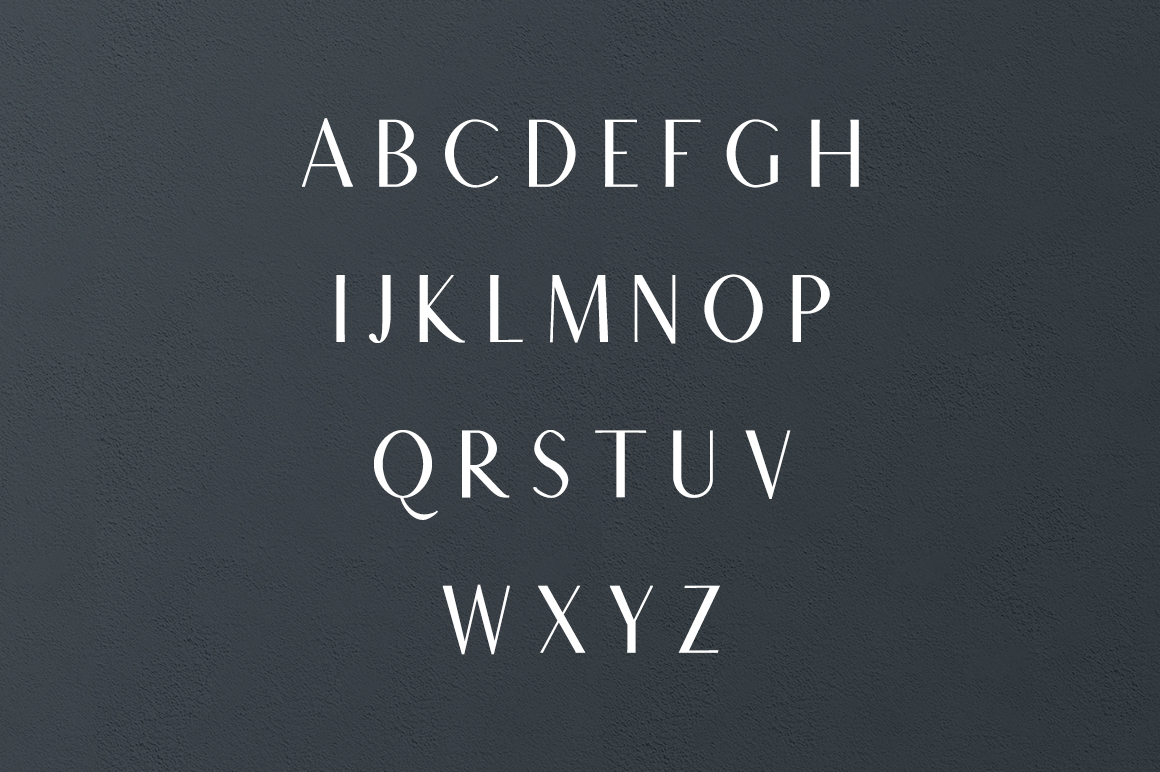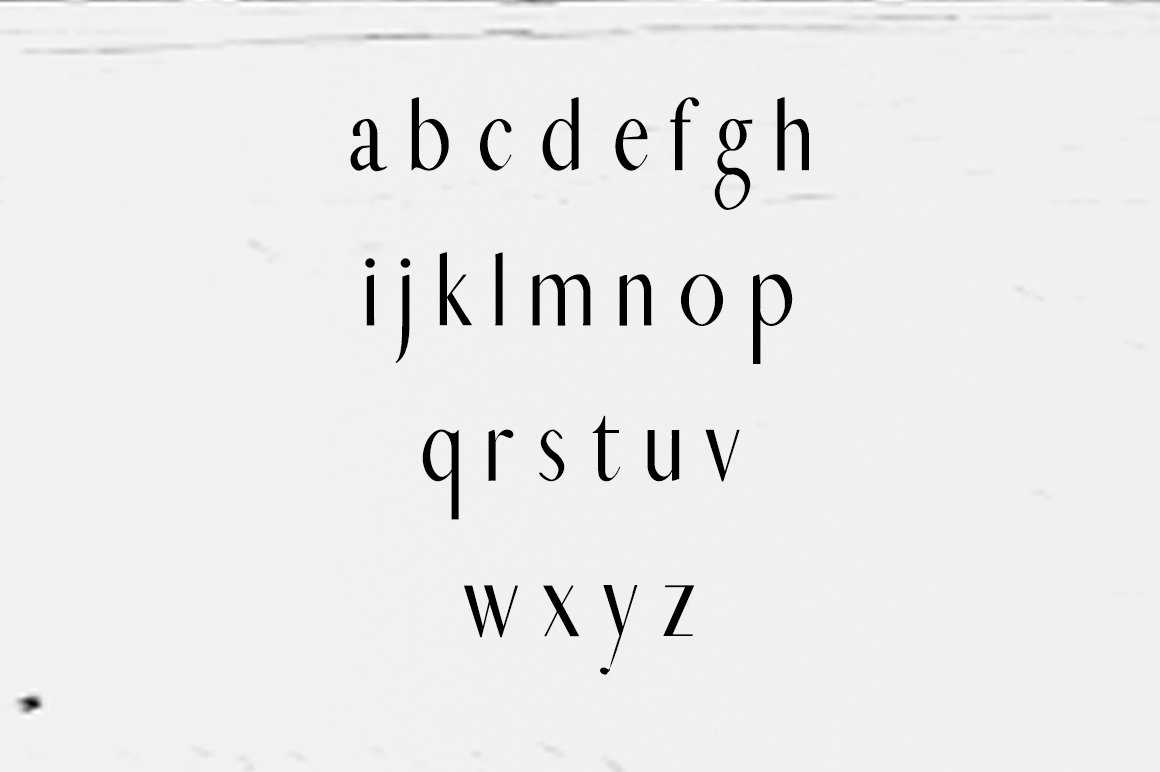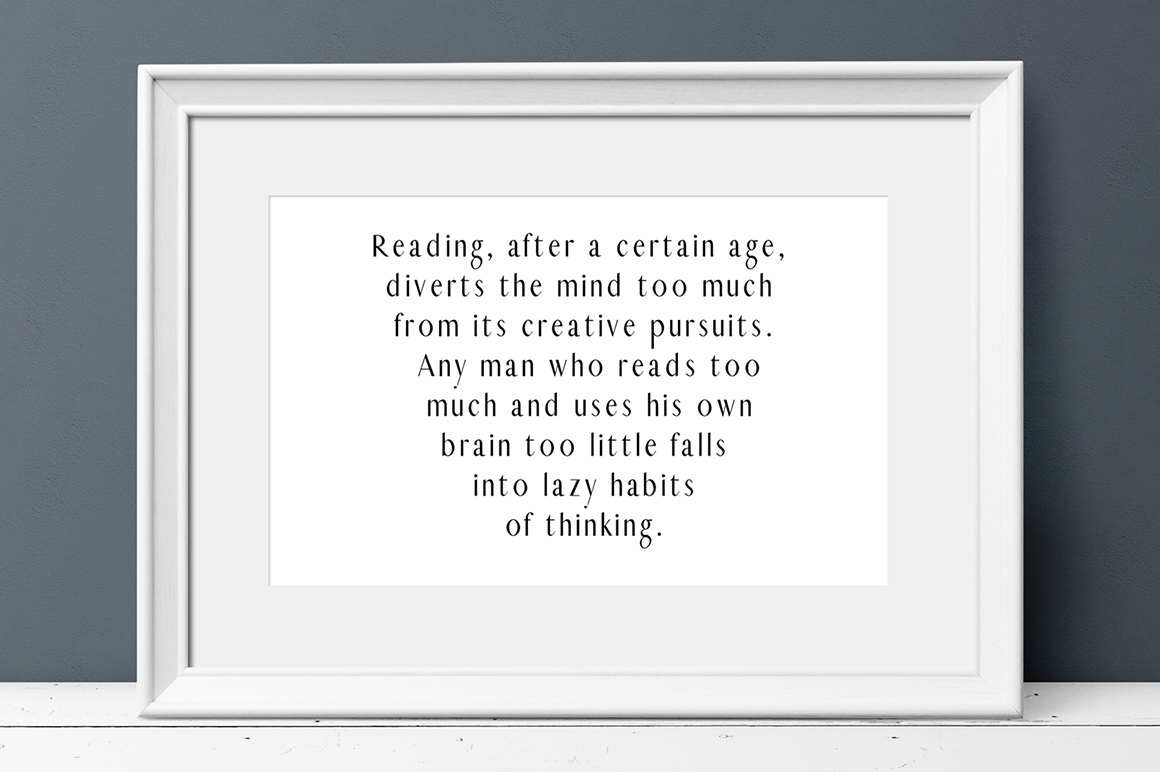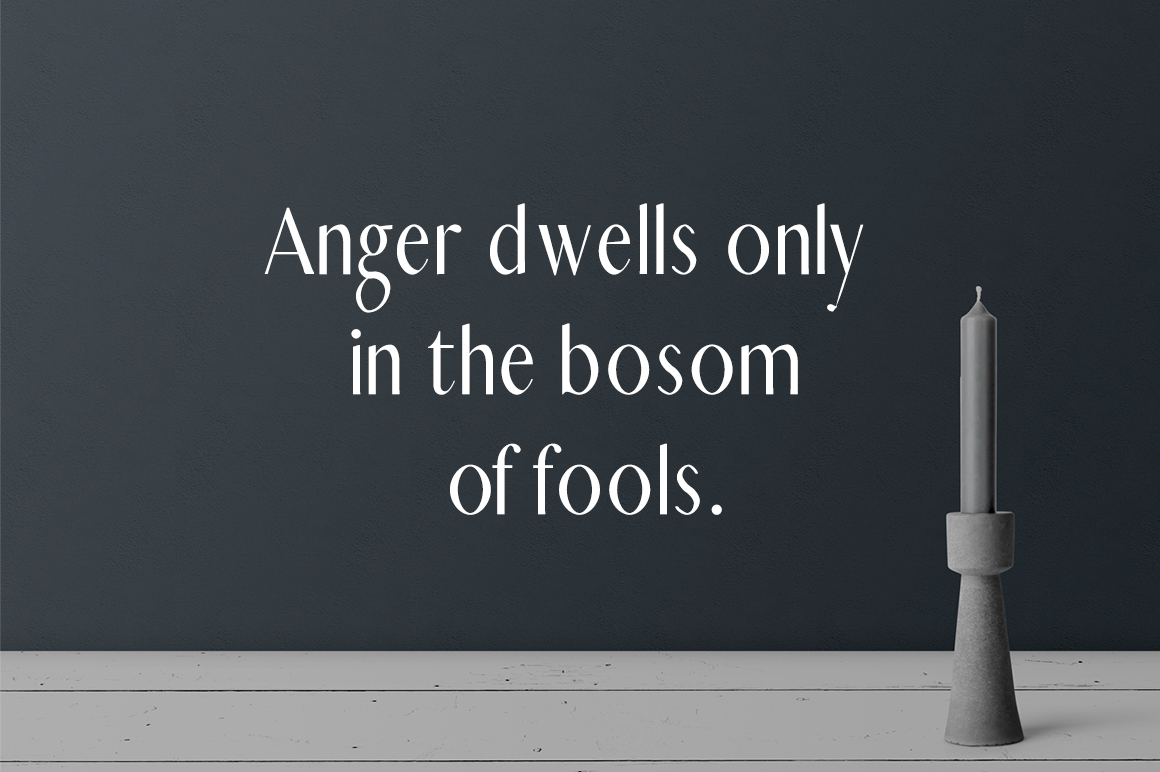
Introduction to Charlton 7 Font Family Pack Font
Charlton Beautiful Sans Serif Typeface is a clean and simple sans serif font, which contains 7 weights and It features unique and modern sans serif look and feel.
This typeface is classic and traditional, but feels modern and sleek due to its clean design and weight Add the Carlton 7 Font Family Pack to your collection today.
Key Features of Charlton 7 Font Family Pack Font